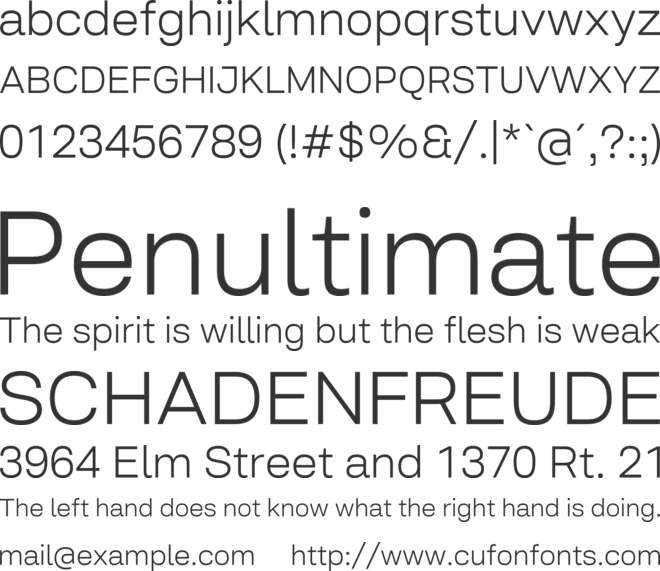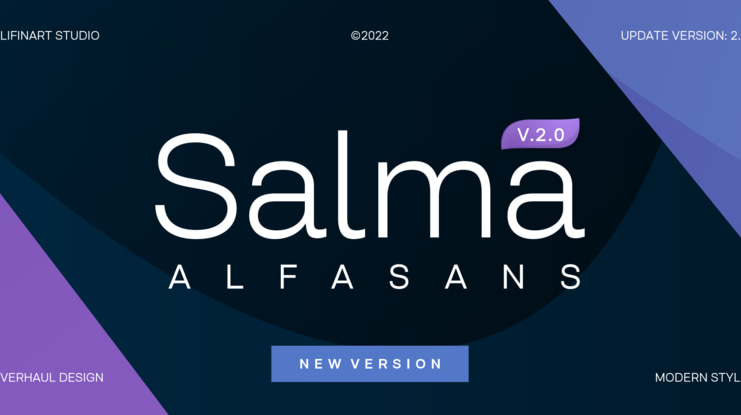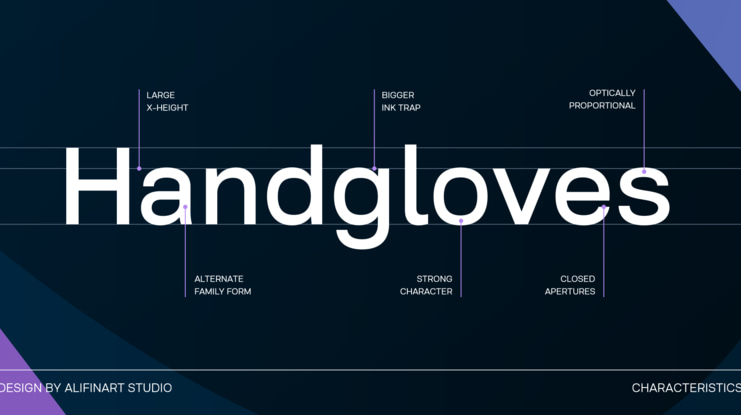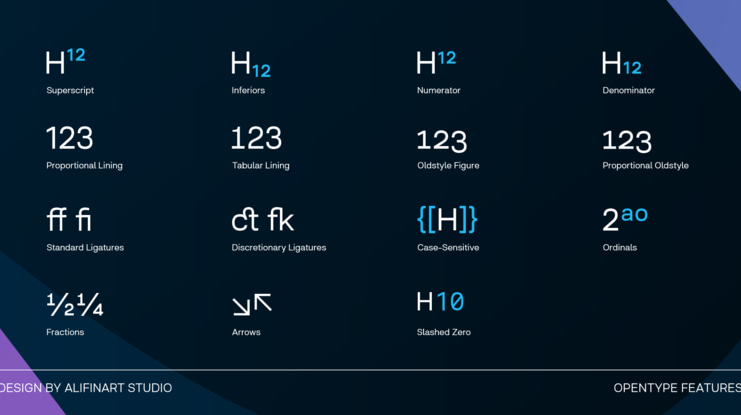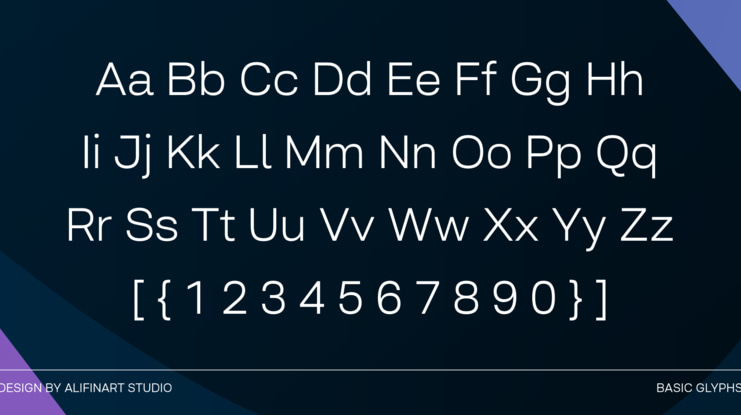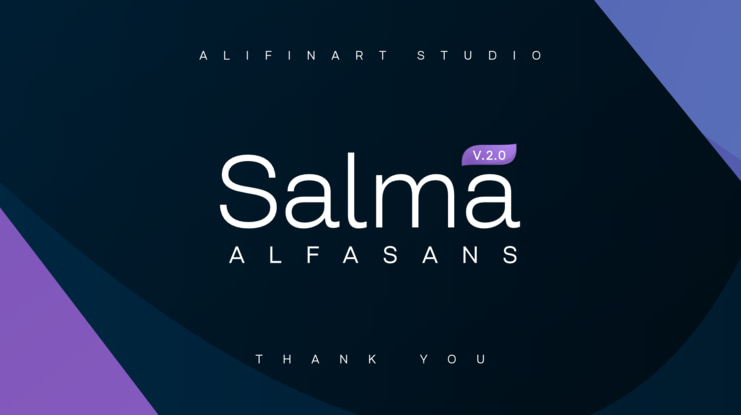
SALMA ALFASANS UPDATE VERSION 2.0
Update Details: - New designs and mayor changes - Tabular and proportional lining figures - Tabular and proportional oldstyle figures - Stylistic set for a, l, y, and G - Numerator, denominator, and fractions - New ligatures for ff, fi, fj, ft, fk, ffk, and more - Case sensitive, and - Arrows
Salma Alfasans is a modern sans serif font, created on February 25, 2021. The main inspiration for this font is its modern geometry and bold design, but looks elegant and smooth.
This font is well-crafted and has almost no contrast at all. The advantage of the Salma Alfasans font is that it is very appropriate when used as a heading, but also looks good when used as body text.
With many weight options, you can freely adjust the design scenario based on your needs. When it was first released and about a month later, Salma Alfasans gave away 2 of the 18 font families for free; Light and Light Italic. The good news is, you can use both of them for commercial and non-commercial projects.